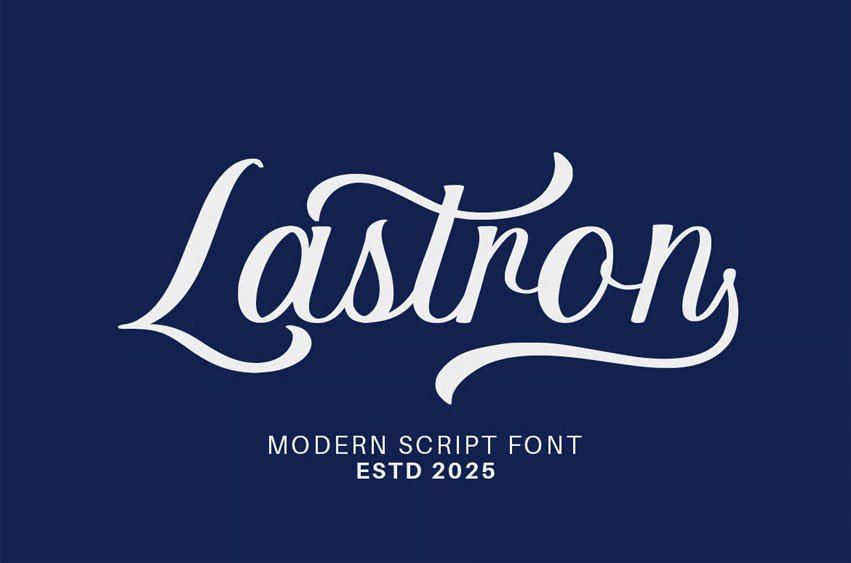
Lastron Font is a modern script typeface that captures the perfect harmony between elegance and confidence. With its flowing letterforms and dynamic structure, this typeface adds a bold yet refined presence to any project.
Whether you’re working on branding, packaging, editorial layouts, or digital designs, Lastron brings a contemporary sophistication that elevates your visual presentation. Designed to be both expressive and versatile, it embodies a timeless charm that makes your work stand out with character and grace.
- Unique Hand-Drawn Style